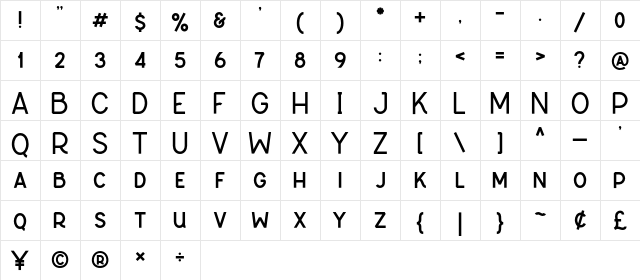
Erabura Regular
Design Context for Erabura Typeface
Erabura takes a measured approach to typography — its balanced proportions and neutral character make it a reliable workhorse for both digital and print work.